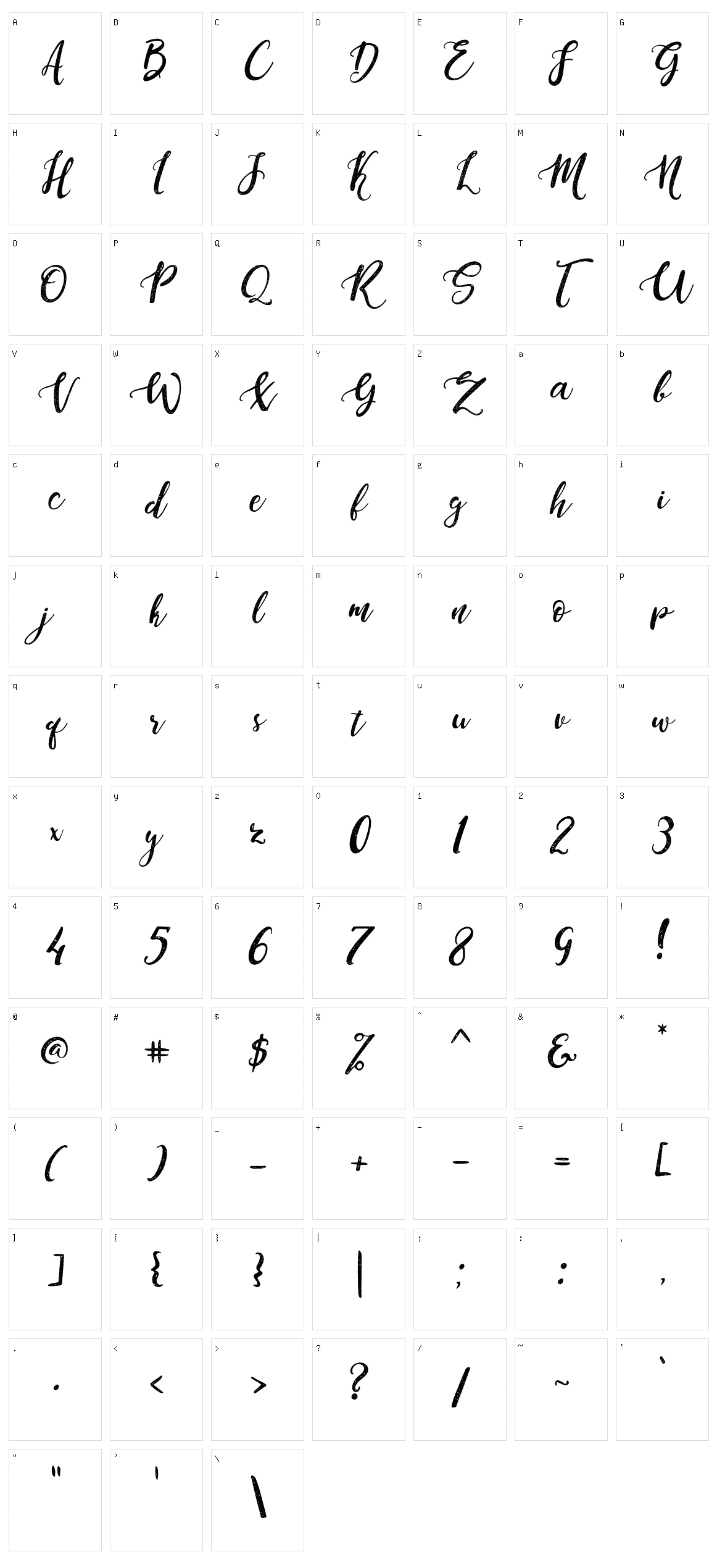
Dandeleón font+ SWASHES is a an original type to recognize.
It comes in two versions; Vintage and Paint. The font contains contextual alternates supports multilingual languages, ligatures and PUA Encoded.
Dandeleón font+ SWASHES Vintage created by Eric Kurniawan & I Made Miada, Dandeleón font+ SWASHES works great in logotypes and slogans.
Use it as the go-to font for your business' titles.